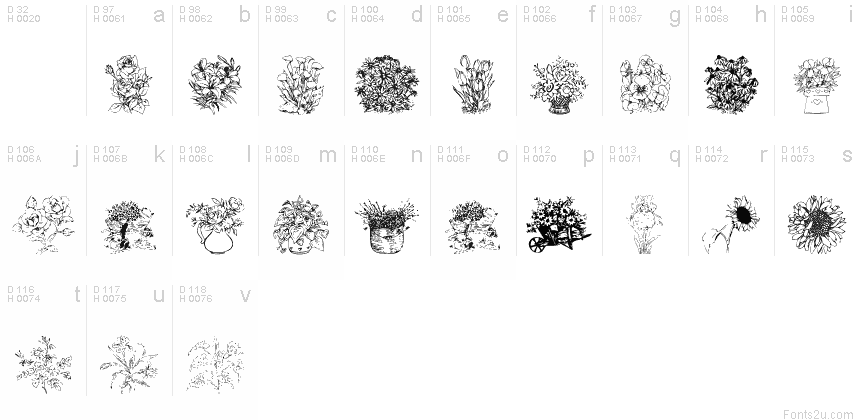
Flower Shower by Frogii is a free floral dingbat font built from hand-drawn bouquets, potted blooms, and garden arrangements. Fine pen lines, dense sprays of leaves, and lightly uneven contours give each ornament the look of a vintage botanical sketch made for an old garden journal.
Publishing is an especially good home for these detailed flower drawings. They can mark chapter openings in gardening books, decorate wedding invitations and seed packaging, or become part of an illustrated poster, where the recurring stems, petals, and flower heads can continue into the surrounding artwork rather than behave like ordinary text.